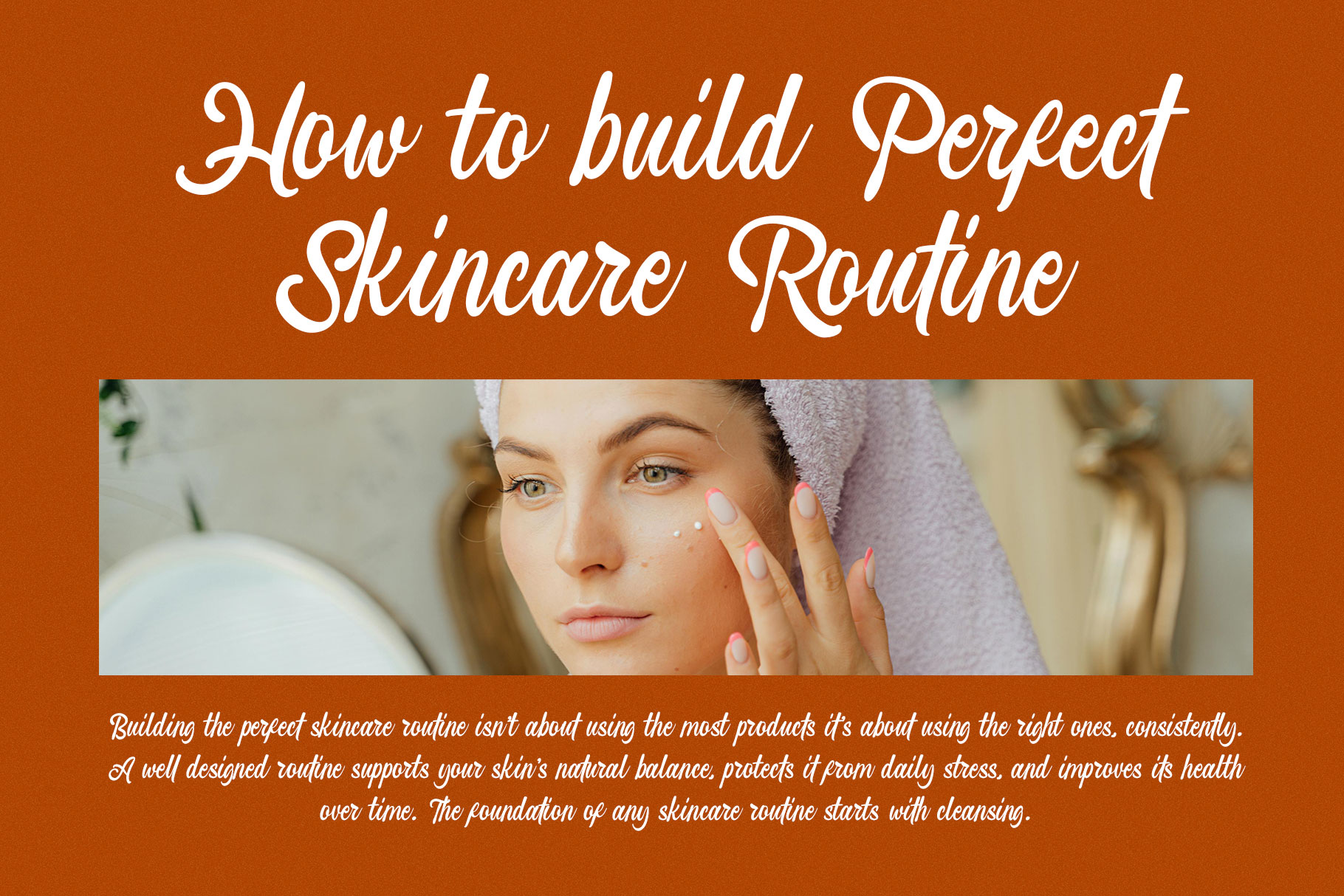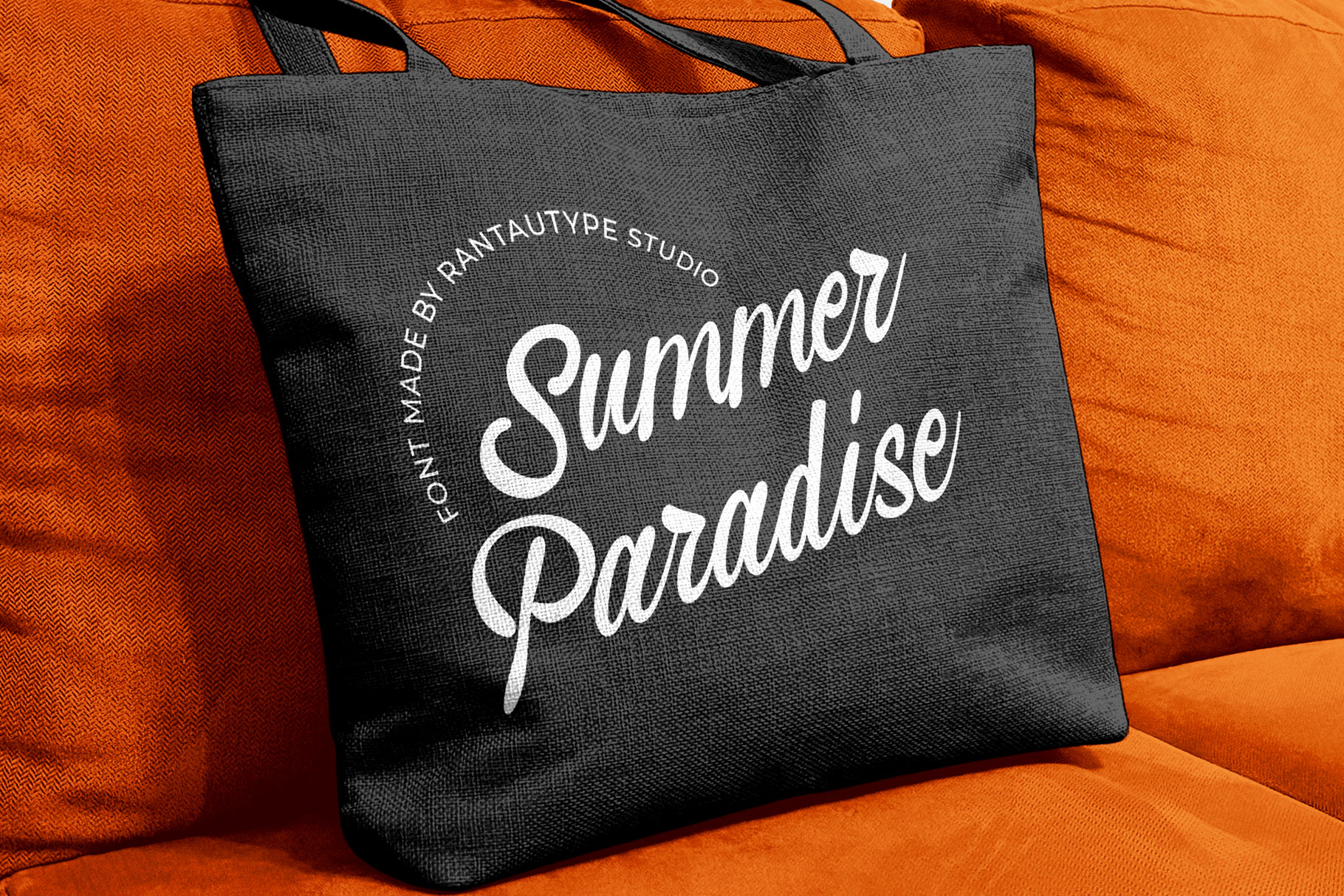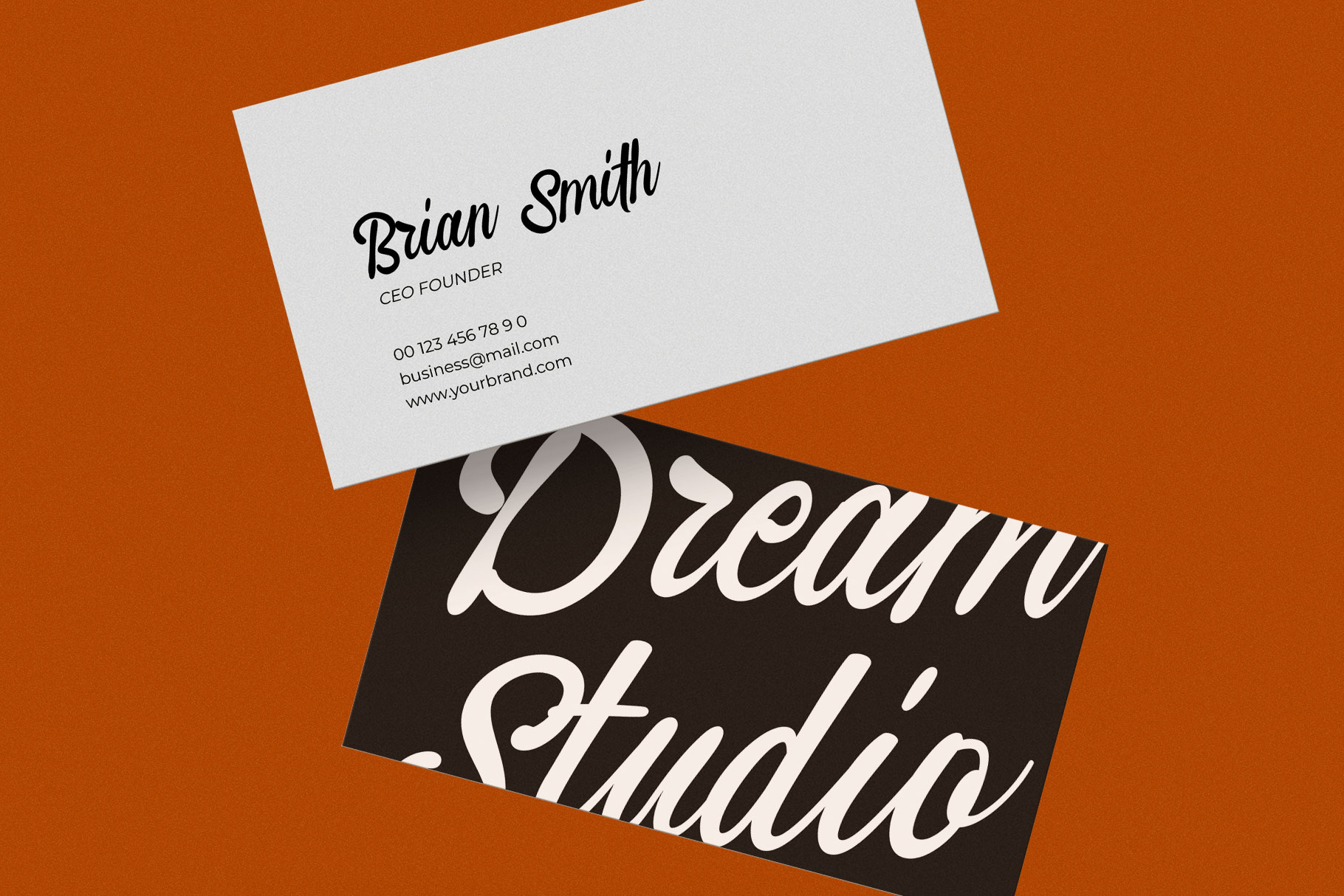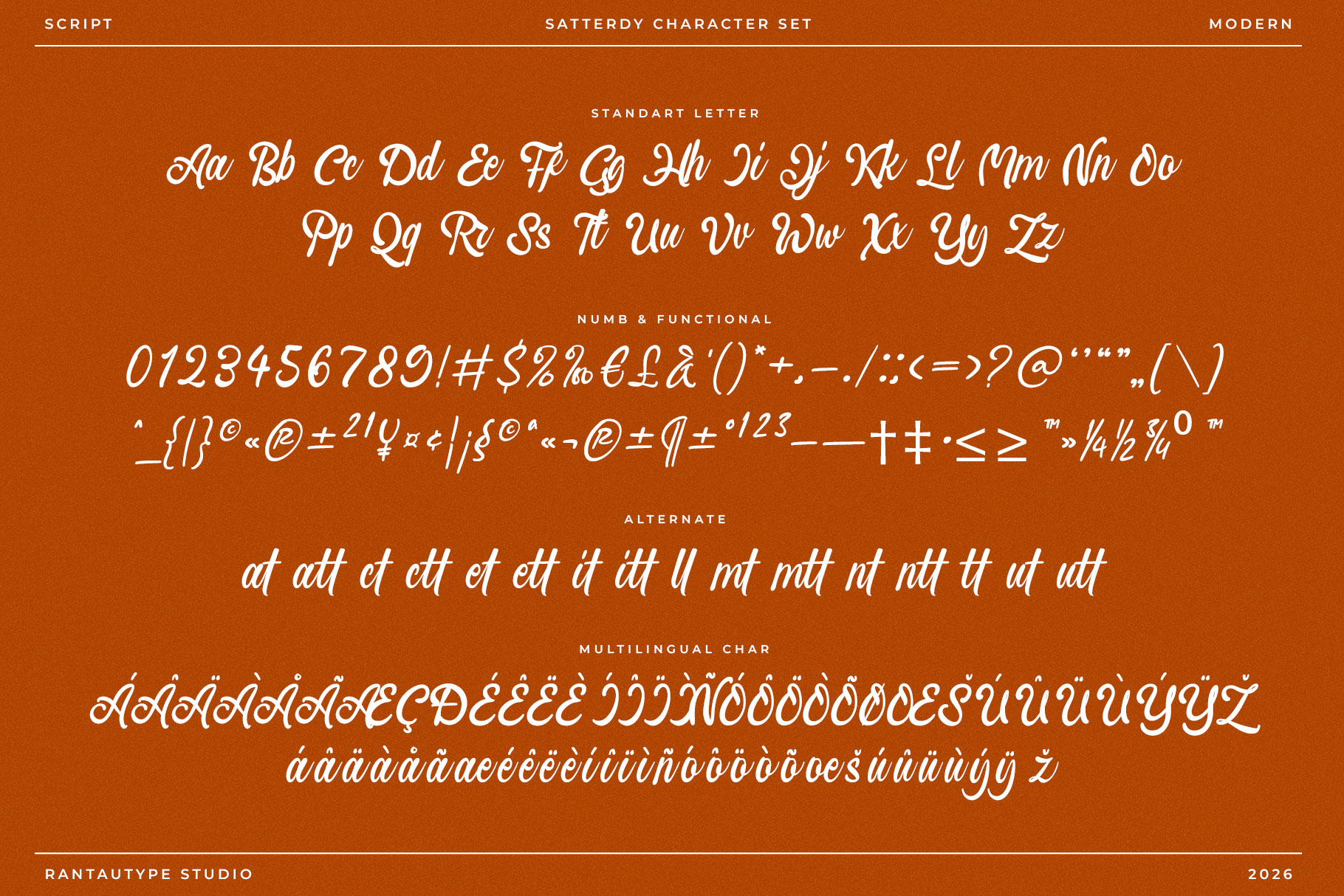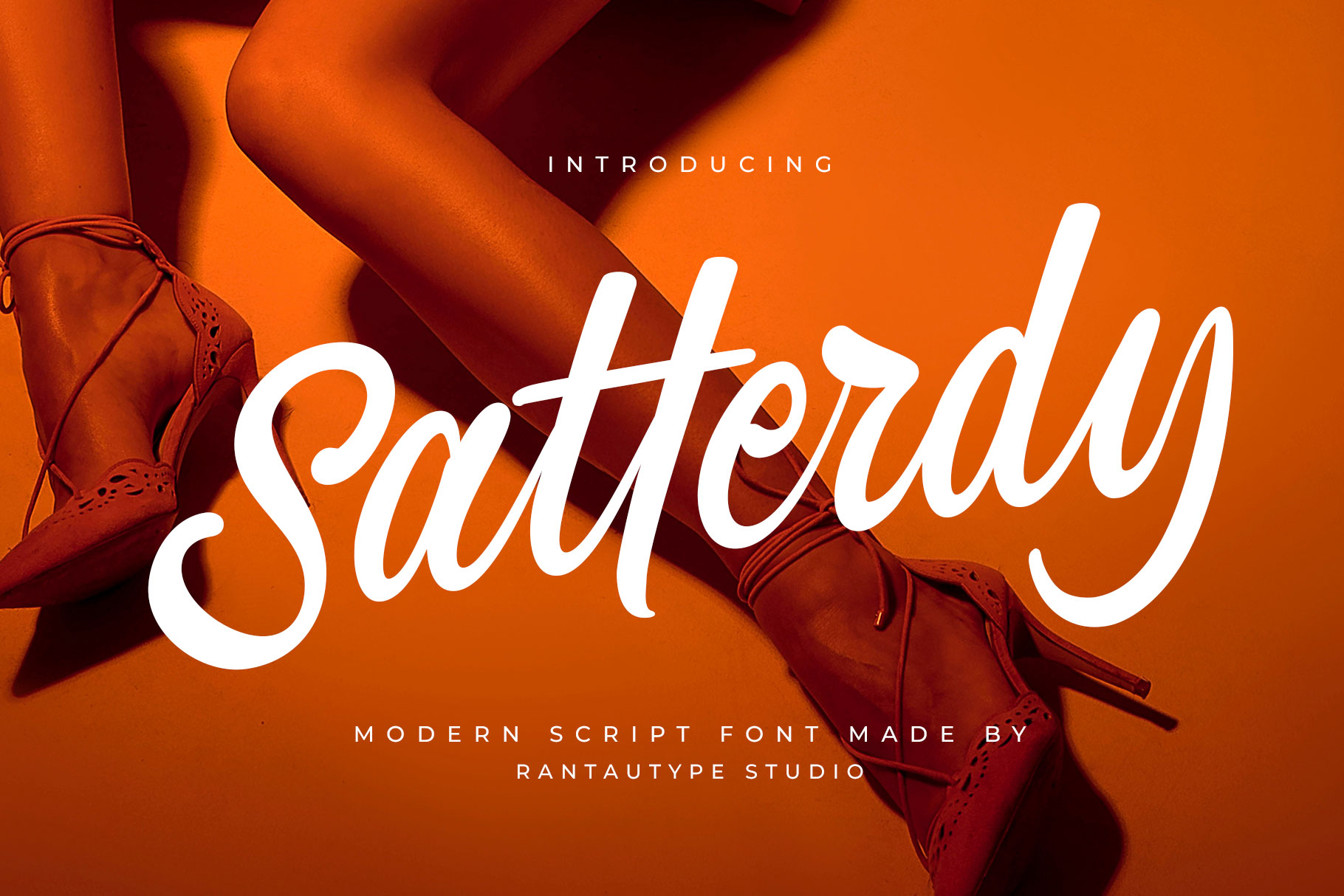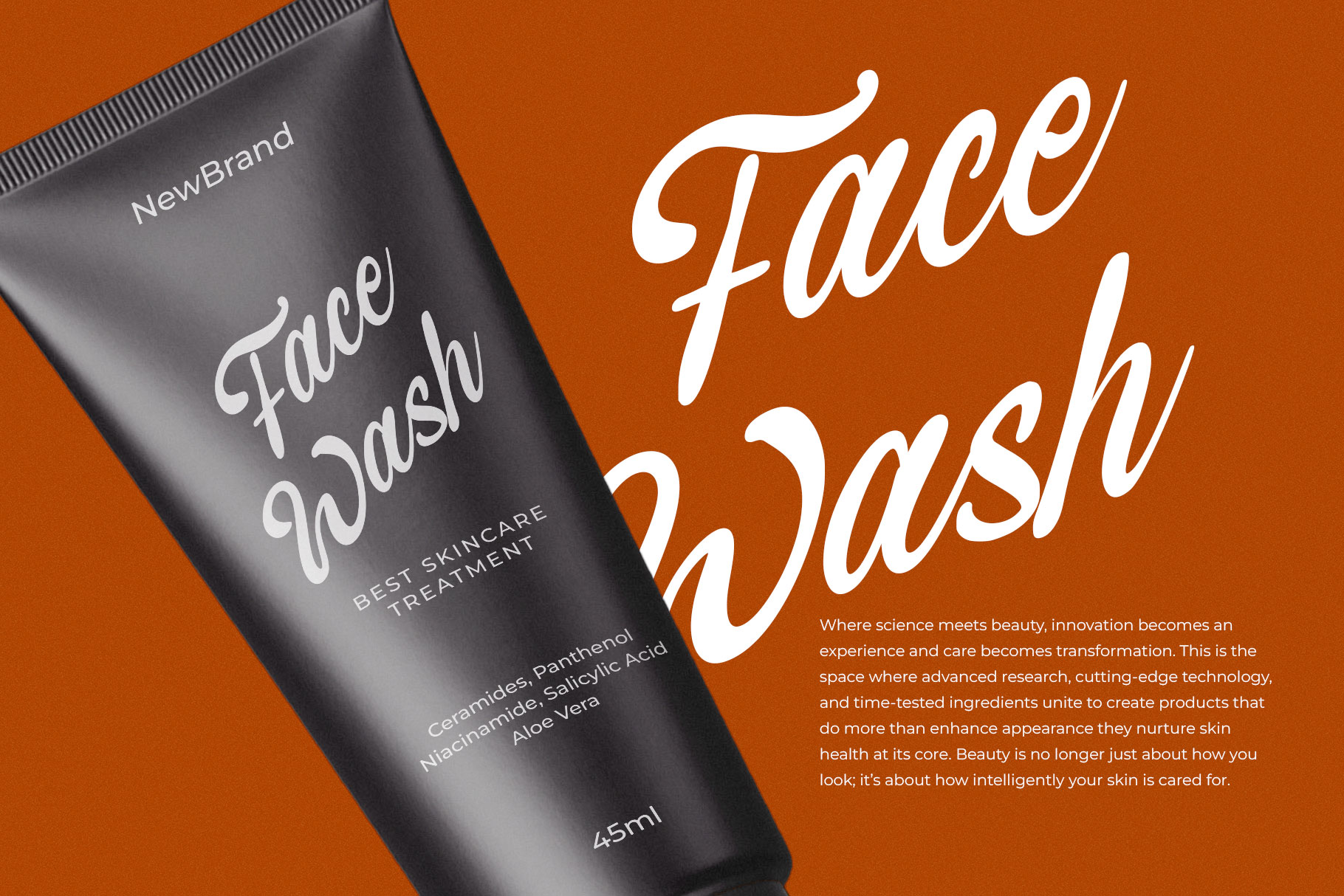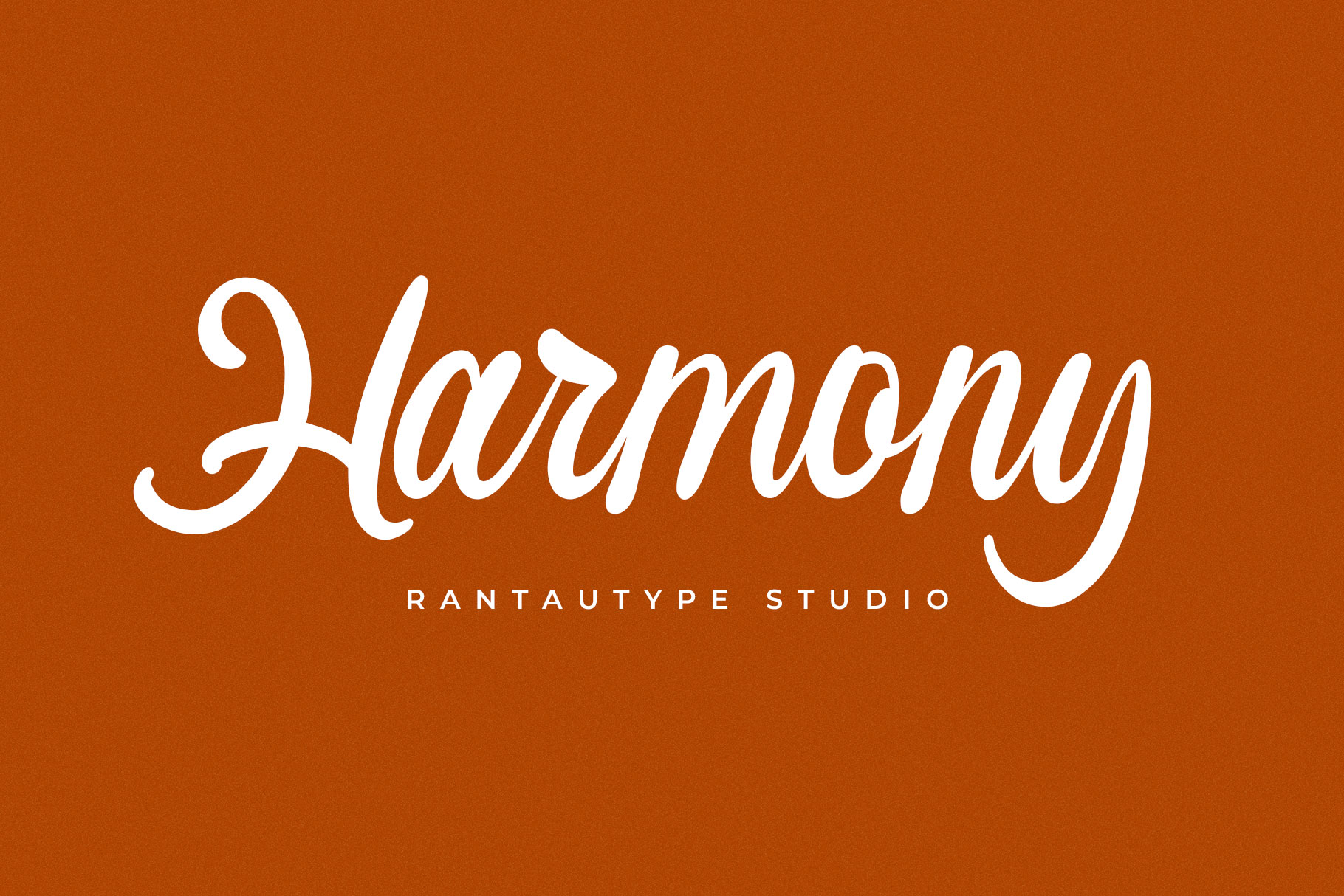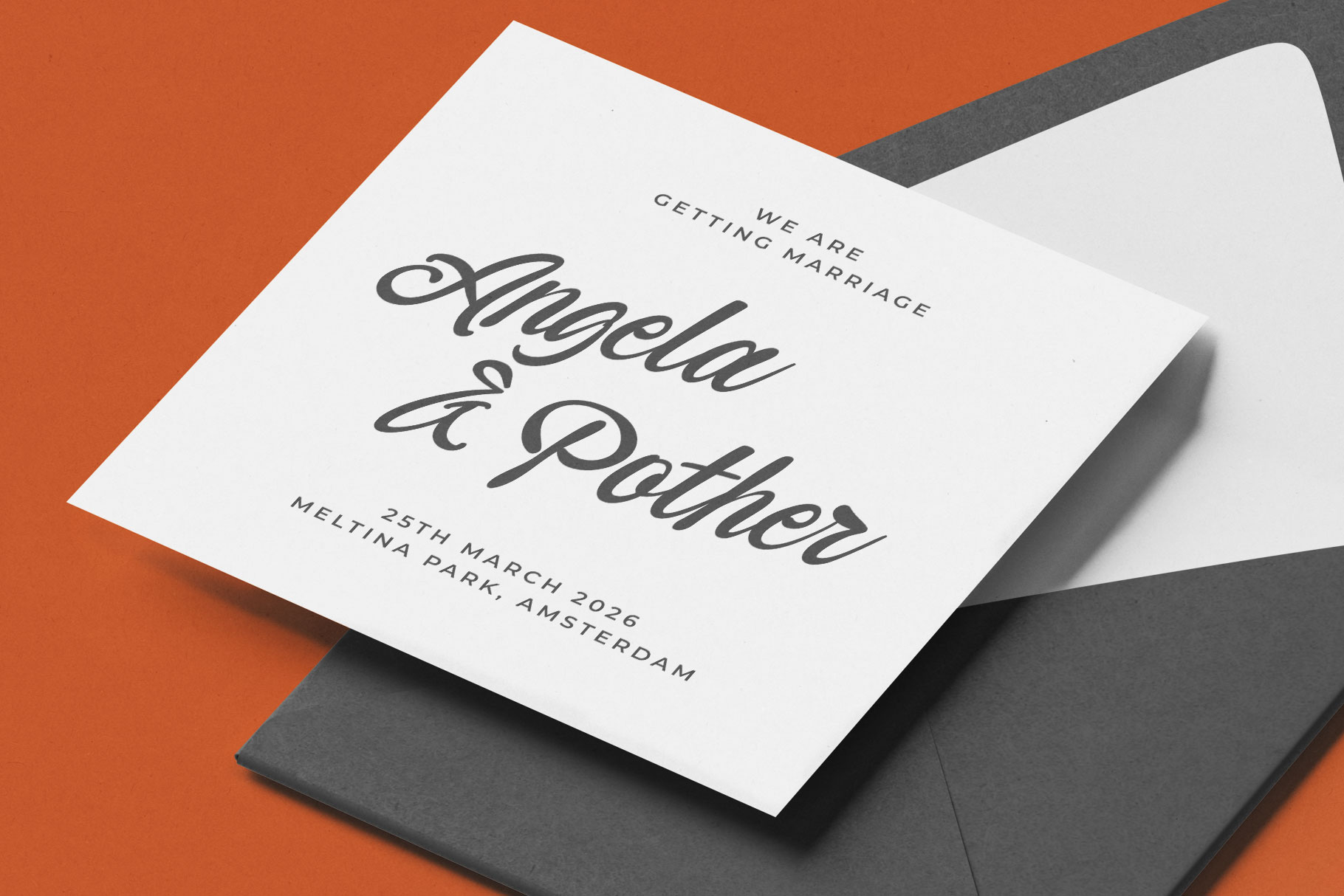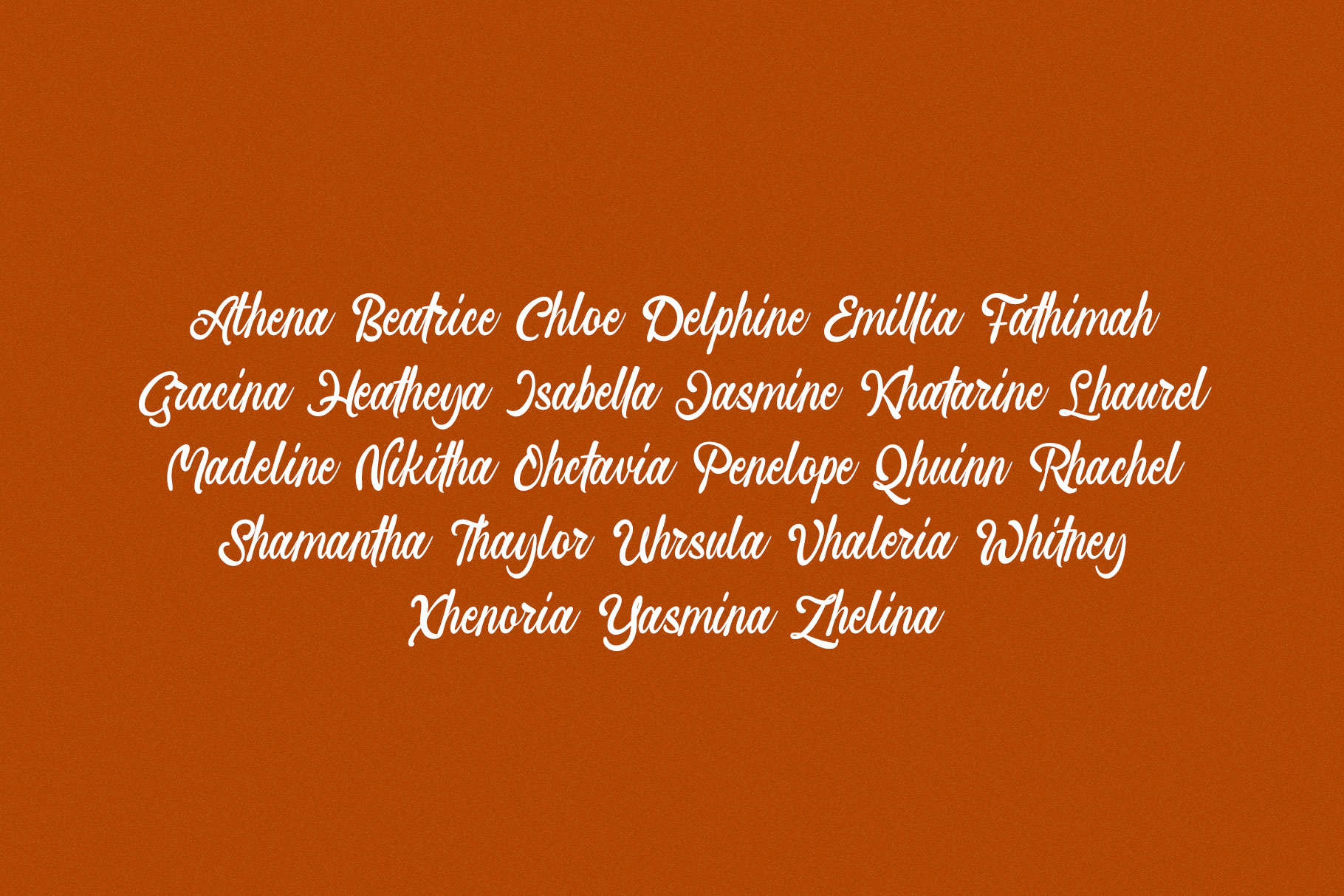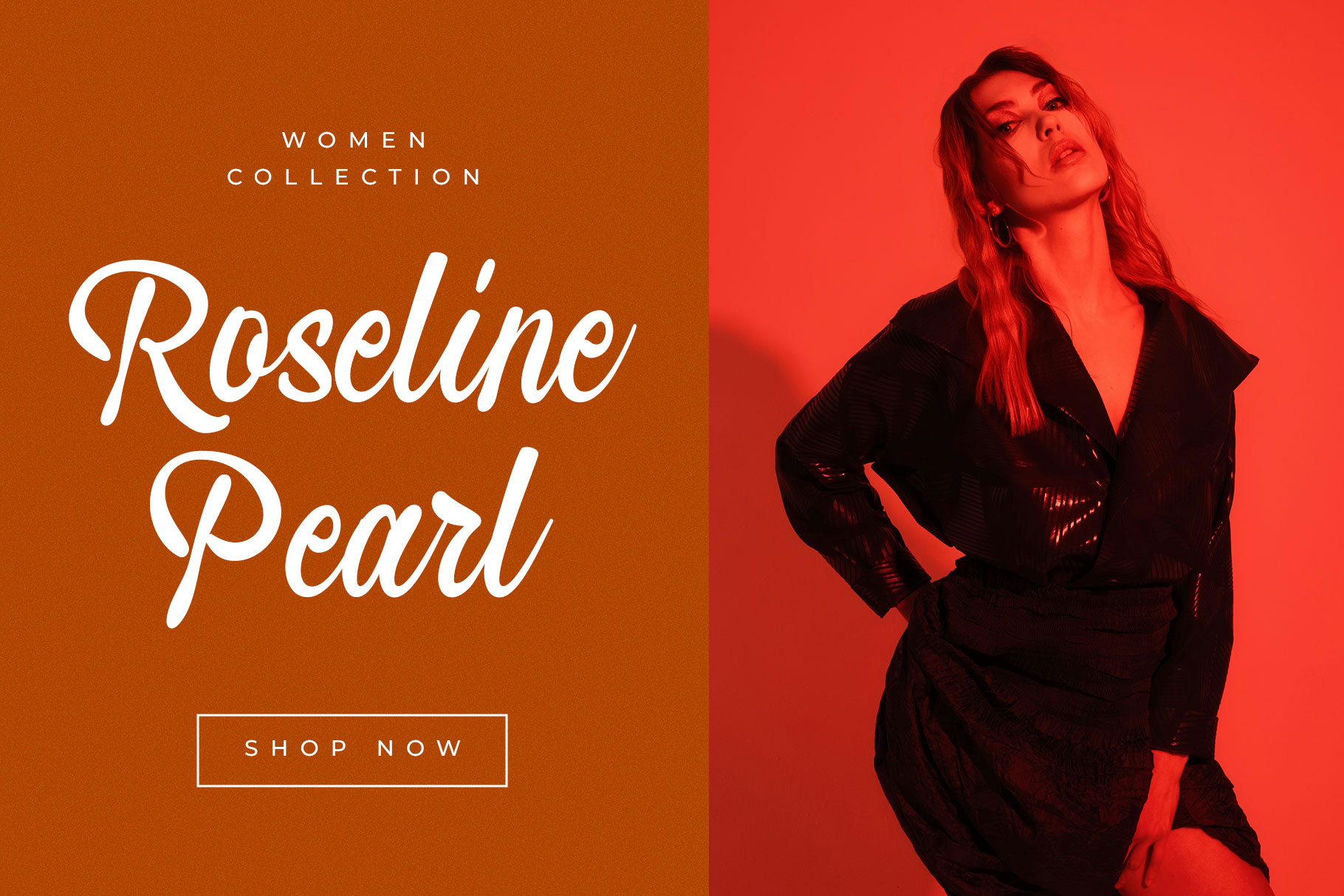
Satterdy Modern Script Font
Satterdy is modern script font made by rantautype studio. Satterdy is a perfectly choice for any creative endeavor, creating, modern, lifestyle design such as logotype, title, cover, branding, invitations, wedding designs, display and magazine, social media posts, advertisements, printed quotes, product packaging, corporate brand, product designs, labels, photography, watermarks, special events and any other project with modern touch.